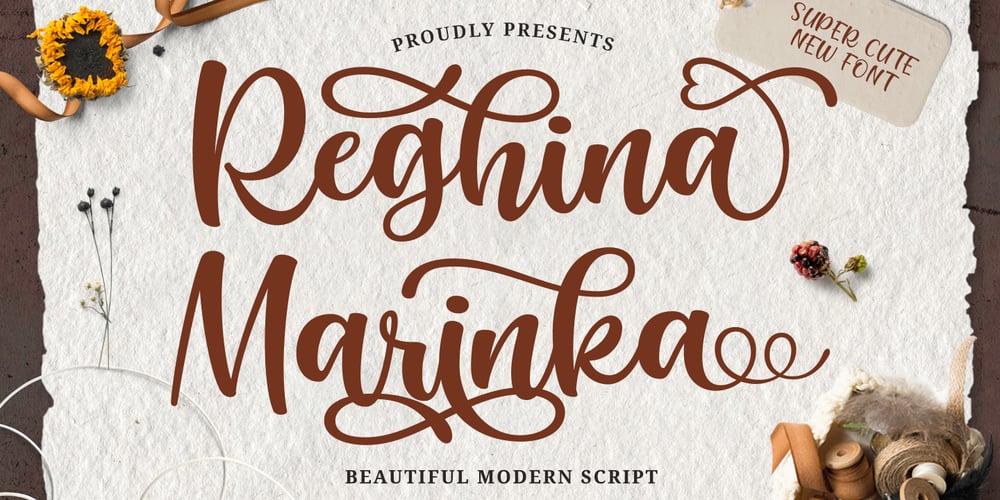
Reghina Marinka Font Family was designed by Arif Dwi and published by Kotak Kuning Studio. Reghina Marinka contains 1 styles and family package options. Reghina Marinka is a lovely modern script font with a natural & stylish flow. Perfect for making elegant stylish statements – or adding a touch of class to your designs. This script has a multitude of lovely alternate characters in its OpenType features – making the font look beautifulReghina Marinka is perfect for many different projects such as logos & branding, invitations, stationery, wedding designs, social media posts, advertisements, product packaging, product designs, labels, photography, watermarks, special events, or anything.I highly recommend using a program that supports OpenType features and Glyphs panels such as Adobe Illustrator, Adobe Photoshop CC, Adobe InDesign, or CorelDraw, so you can see and access all Glyph variations.This font is encoded with Unicode PUA, which allows full access to all additional characters without having special design software. Mac users can use Font Book, and Windows users can use Character Map to view and copy one of the extra characters to paste into their favorite text editor/application.We hope you enjoy the font, thanks.